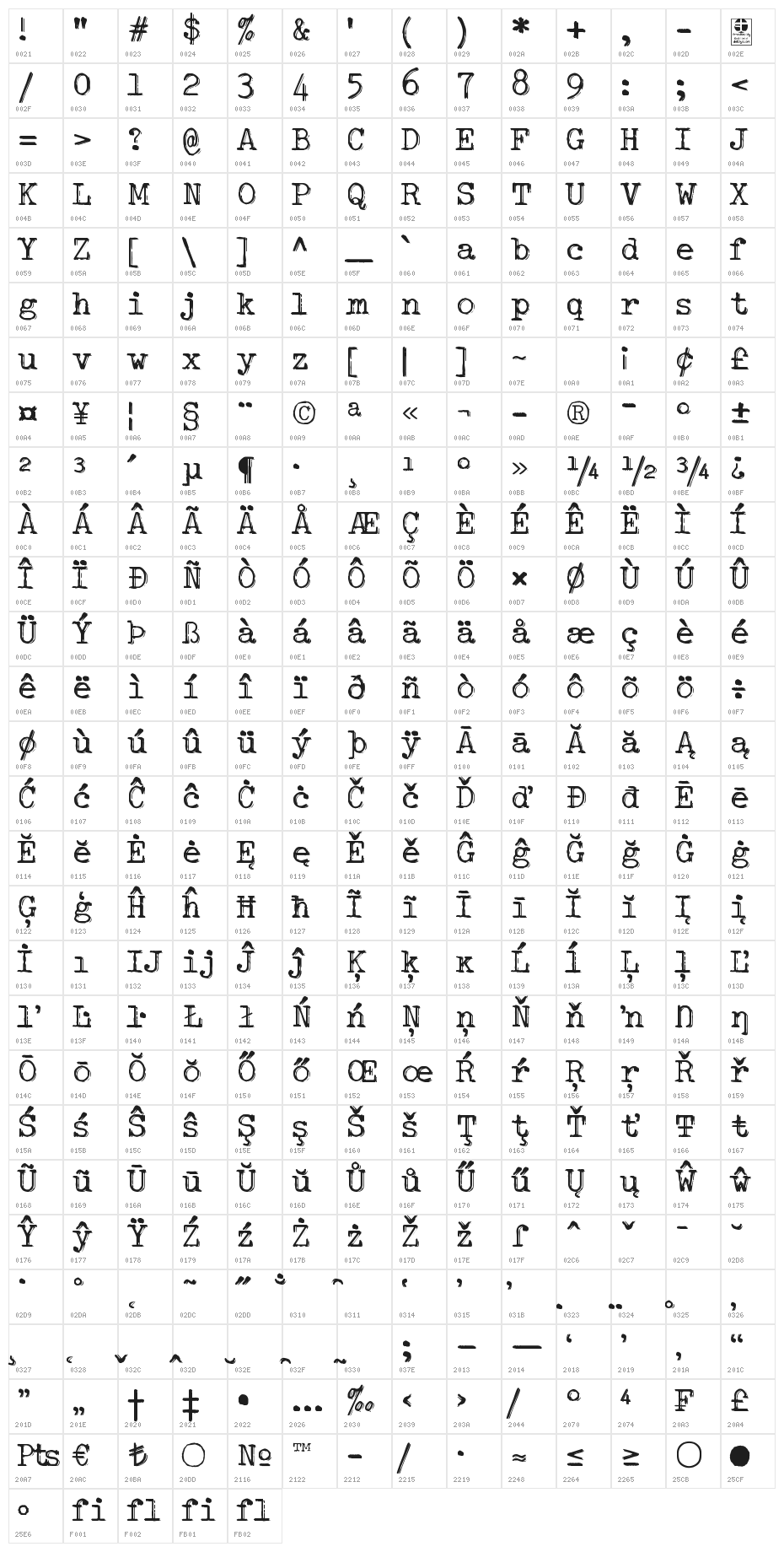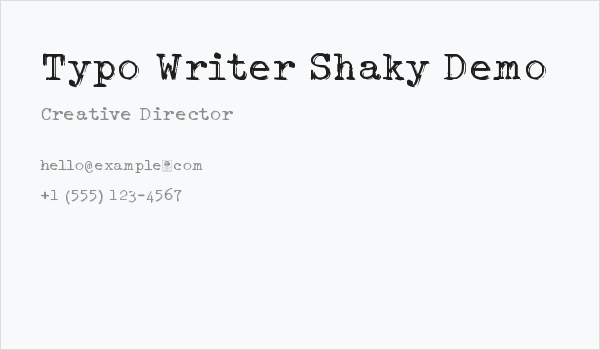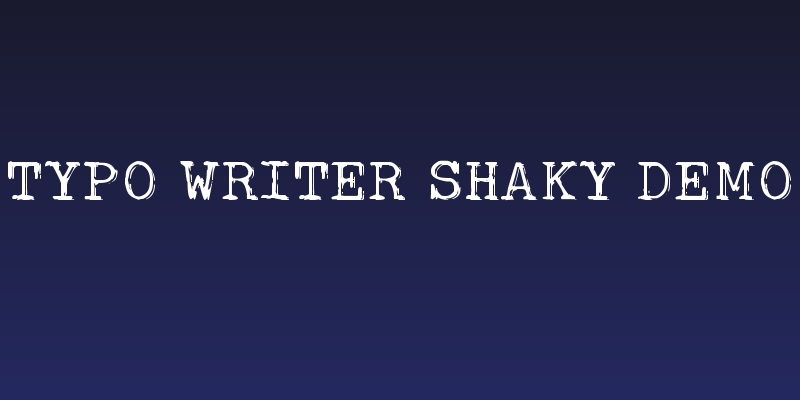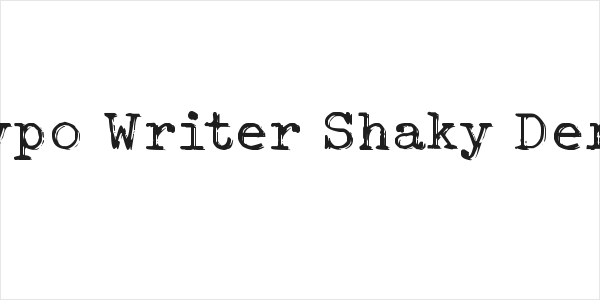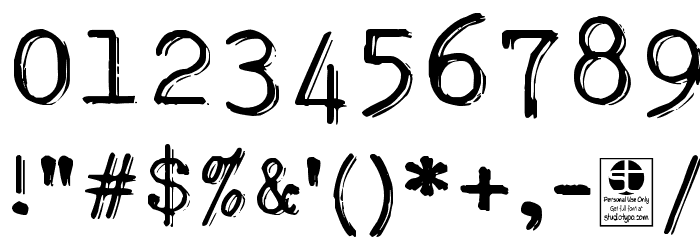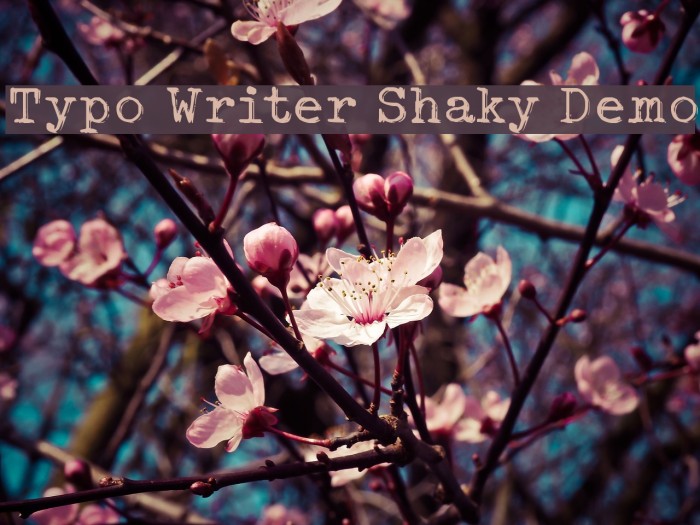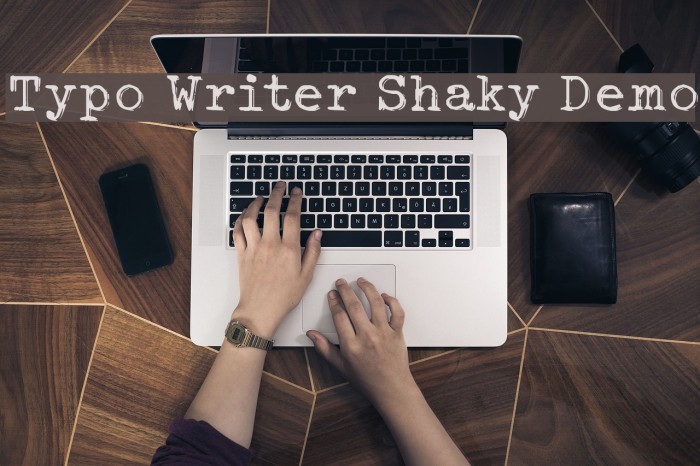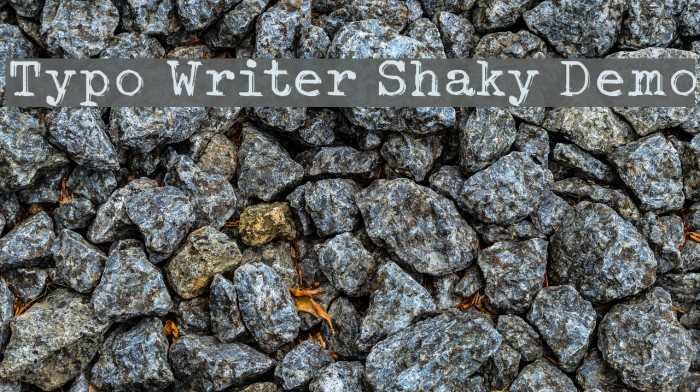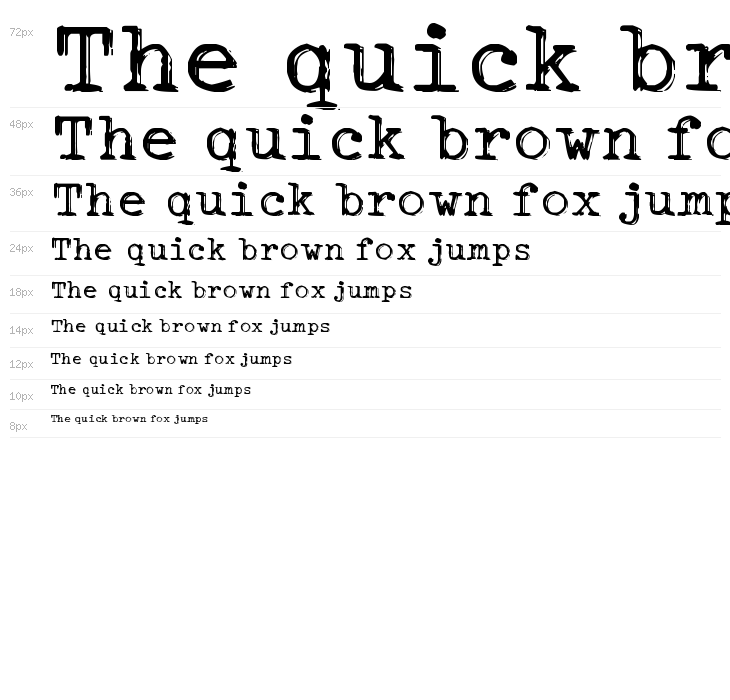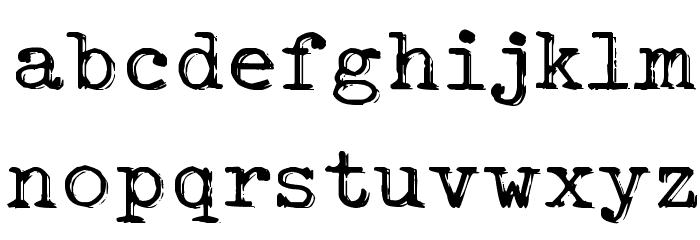
Typo Writer Shaky Demo Font
Typo Writer Shaky Demo Description
This font exudes a vintage, typewriter-inspired aesthetic with a unique twist. Each character appears slightly distressed and uneven, giving it a hand-crafted, shaky appearance. The uppercase and lowercase letters maintain a consistent style, with slightly exaggerated serifs and irregular line thickness that add to its quirky charm. The numerals and special characters follow the same design principles, ensuring a cohesive look across all glyphs. This font's distinct style makes it perfect for projects seeking a retro or handmade feel, while still maintaining readability.
| Use Case | Headlines, Logos, Artistic projects |
| Proposed Projects | Ideal for retro-themed designs, handmade crafts, greeting cards, and artistic projects that require a unique, vintage touch. |